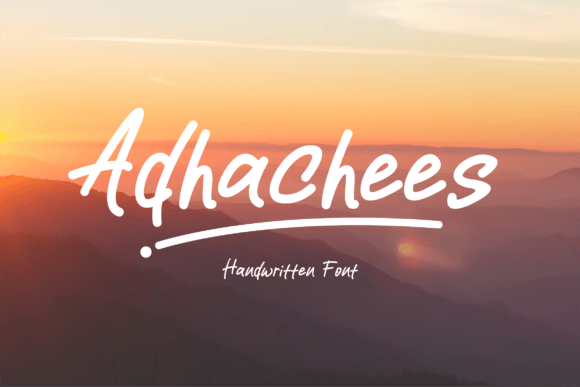
Introducing Adhachees Font – Modern Font, a remarkable display font that radiates boldness and authenticity. This script font, a creation by kalingga.albert, is specifically designed to elevate your branding projects to new heights. With its striking presence, Adhachees Font − Modern Font is the perfect choice for logos, esport designs, and a multitude of other projects.
Prepare to be mesmerized by the distinctive charm of Adhachees Font − Modern Font. This font possesses an intrinsic ability to captivate and inspire, leaving an unforgettable impression on your audience. Whether you're a seasoned designer or just starting out, Adhachees Font − Modern Font is your gateway to creating designs that resonate and connect with your target audience.
Step into a world of boundless creativity with Adhachees Font − Modern Font. Allow your imagination to soar as you craft logos that exude strength and individuality. Create esport designs that pulsate with energy and excitement. The possibilities are endless, and the results will undoubtedly be breathtaking.
Adhachees Font − Modern Font is more than just a font; it's an experience. It's an invitation to explore the depths of your creativity and produce designs that transcend the ordinary. Let your designs speak volumes, conveying messages of power, confidence, and sophistication. With Adhachees Font − Modern Font as your ally, you'll leave an indelible mark on the world of design.